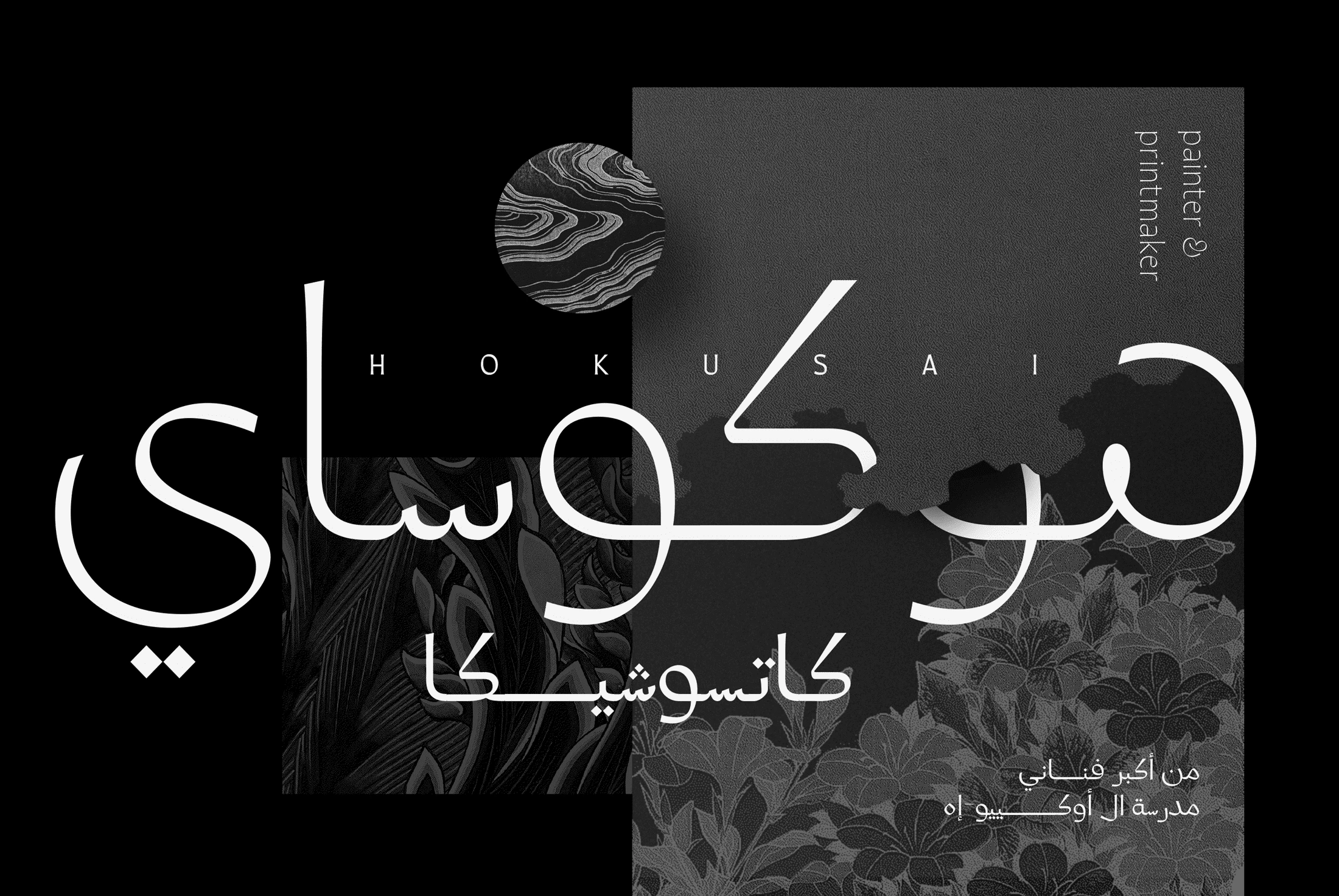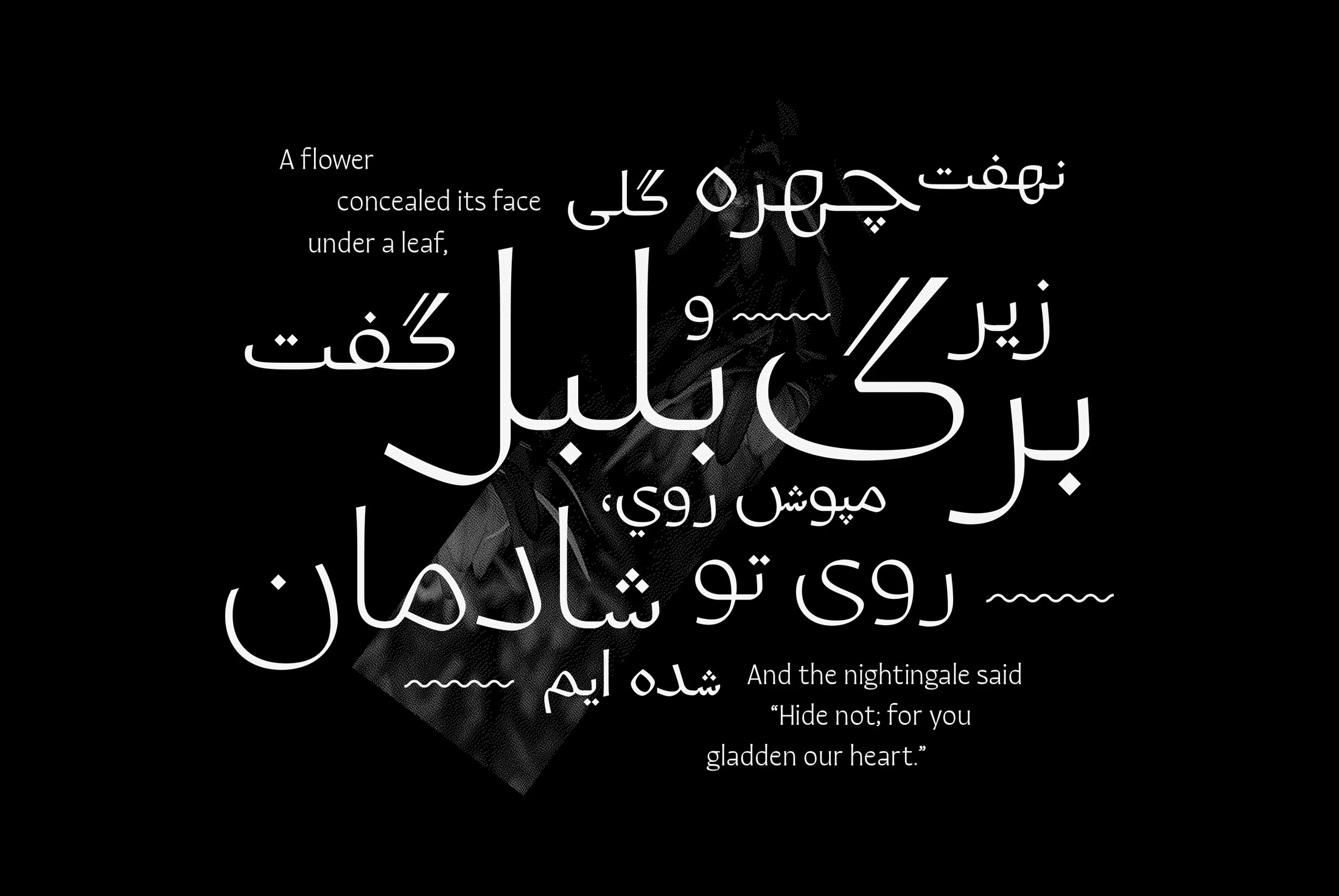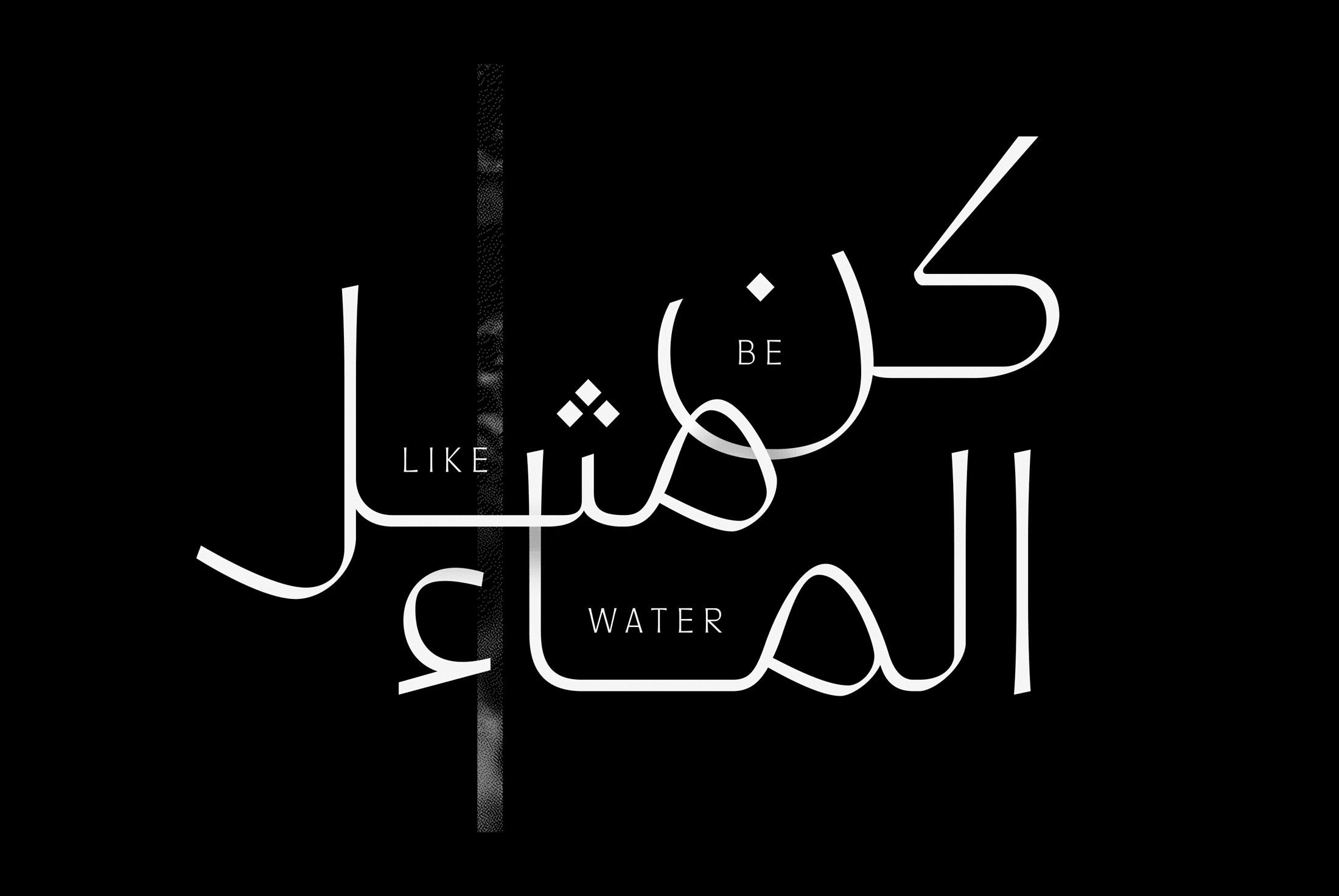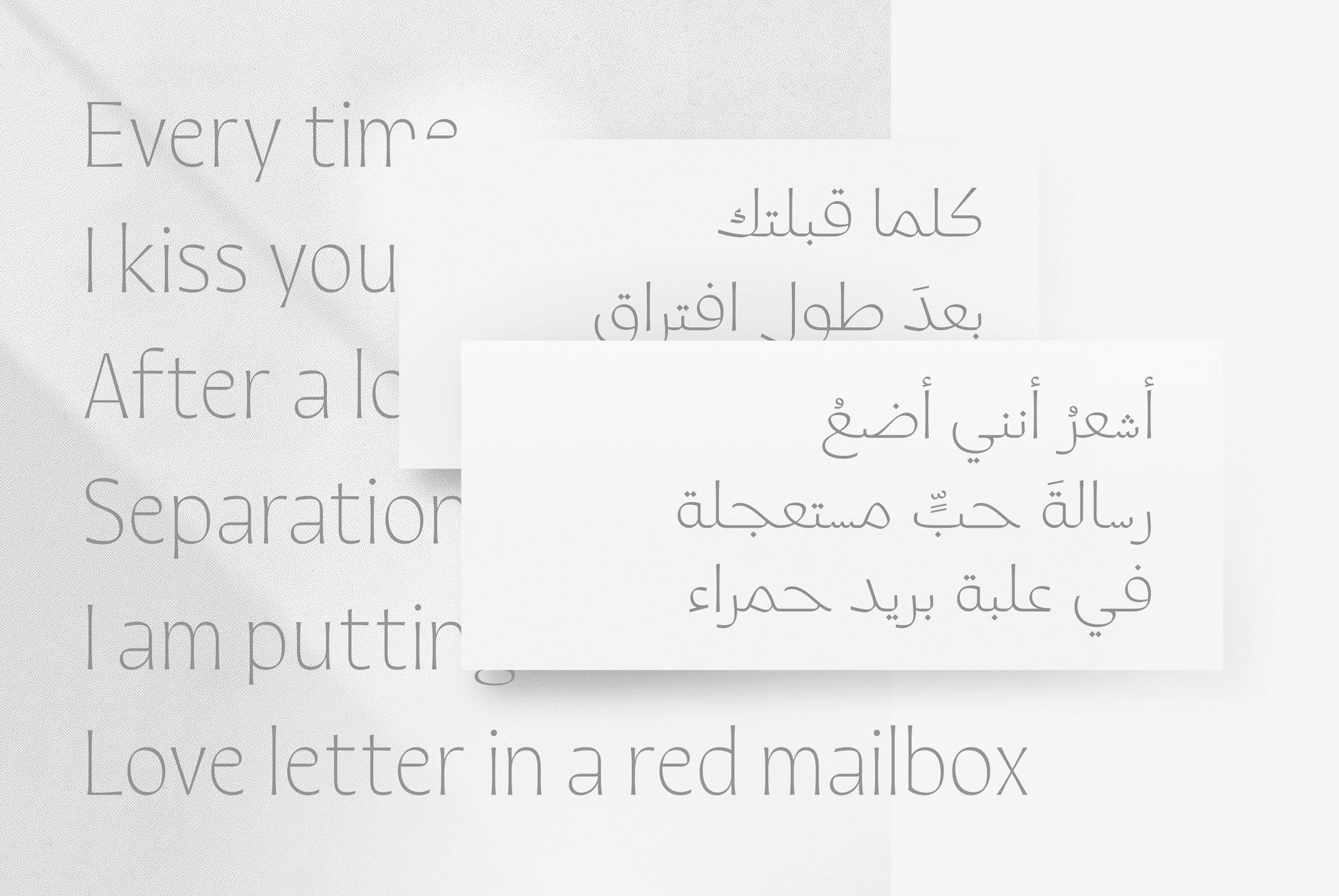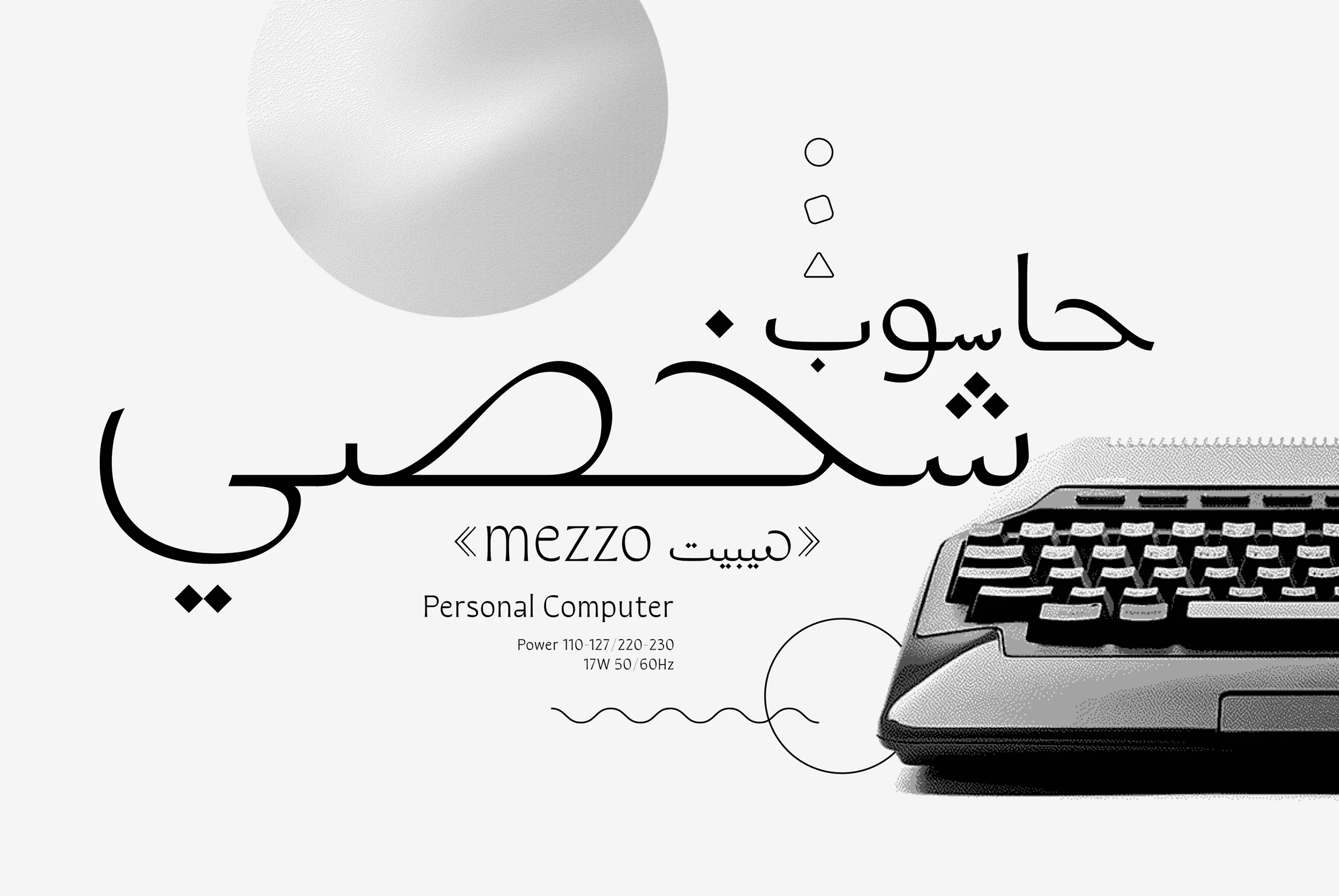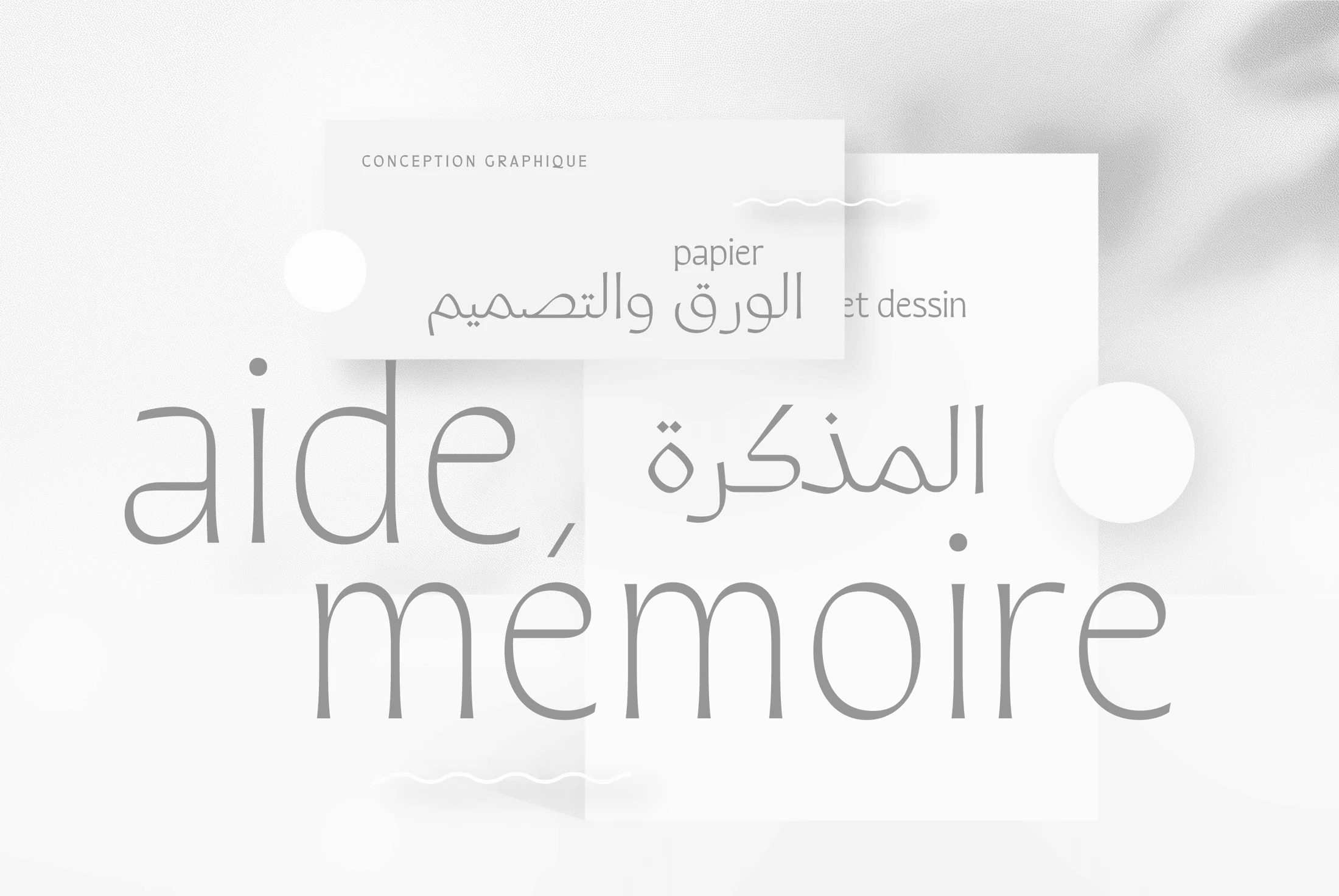
Quiverleaf Arabic
Quiverleaf Arabic Font Family
Quiverleaf Arabic CF brings the graceful flowing movement of the original humanist Quiverleaf to the Arabic script. The shapes appear ribbon-like, effortlessly gliding from letter to letter. Quiverleaf’s versatile design allows for beautiful text and airy headlines, making it an ideal choice for print packaging, global brands, and oversized posters. Five weights — delicate thin to a hearty extra bold — cover Latin and Arabic scripts in an expressively gorgeous and visually unified font family.
five Weights in Latin & Arabic Script
Quiverleaf Arabic font by Connary Fagen Fonts — the Arabic word for Hokusai in large white sans serif letters, with ‘HOKUSAI’ spelled out in small Latin capitals above it, and ‘painter & printmaker’ in small Latin letters vertically on the right Quiverleaf Arabic font by Connary Fagen Fonts — the Arabic word for Quiverleaf in a flowing, connected script, with the words “QUIVERLEAF ARABIC” in upright sans-serif capitals below Quiverleaf Arabic font by Connary Fagen Fonts — Arabic and Latin text in upright sans serif letterforms, with a subtle textured diagonal band behind the Arabic text. Quiverleaf Arabic font by Connary Fagen Fonts — Arabic script in a flowing, connected style, with the English words “BE,” “LIKE,” and “WATER” interspersed among the letters. Quiverleaf Arabic font by Connary Fagen Fonts — English and Arabic text in a light-colored sans-serif upright typeface, with the Arabic text on overlapping white cards. Quiverleaf Arabic font by Connary Fagen Fonts — the words “We are in the garden like two stars on the horizon” in a light gray sans serif, with an Arabic translation in white script overlaid. Quiverleaf Arabic font by Connary Fagen Fonts — Arabic script words and the Latin words “mezzo” and “Personal Computer” are shown next to a vintage computer keyboard, with abstract shapes and a wavy line. Quiverleaf Arabic font by Connary Fagen Fonts — the words “aide-mémoire” in upright Latin serif, and Arabic script words including “المذكرة” and “الورق والتصميم” in upright Arabic script, on overlapping white rectangles with wavy lines.
Discretionary Ligatures
Contextual Alternates
Stylistic Set 1
Stylistic Set 2
Fractions
Tabular Figures
Ordinals
Scientific Inferiors
Superscript
Subscript
Numerators
Denominators
Glyph Composition
Initial Forms
Medial Forms
Final Forms